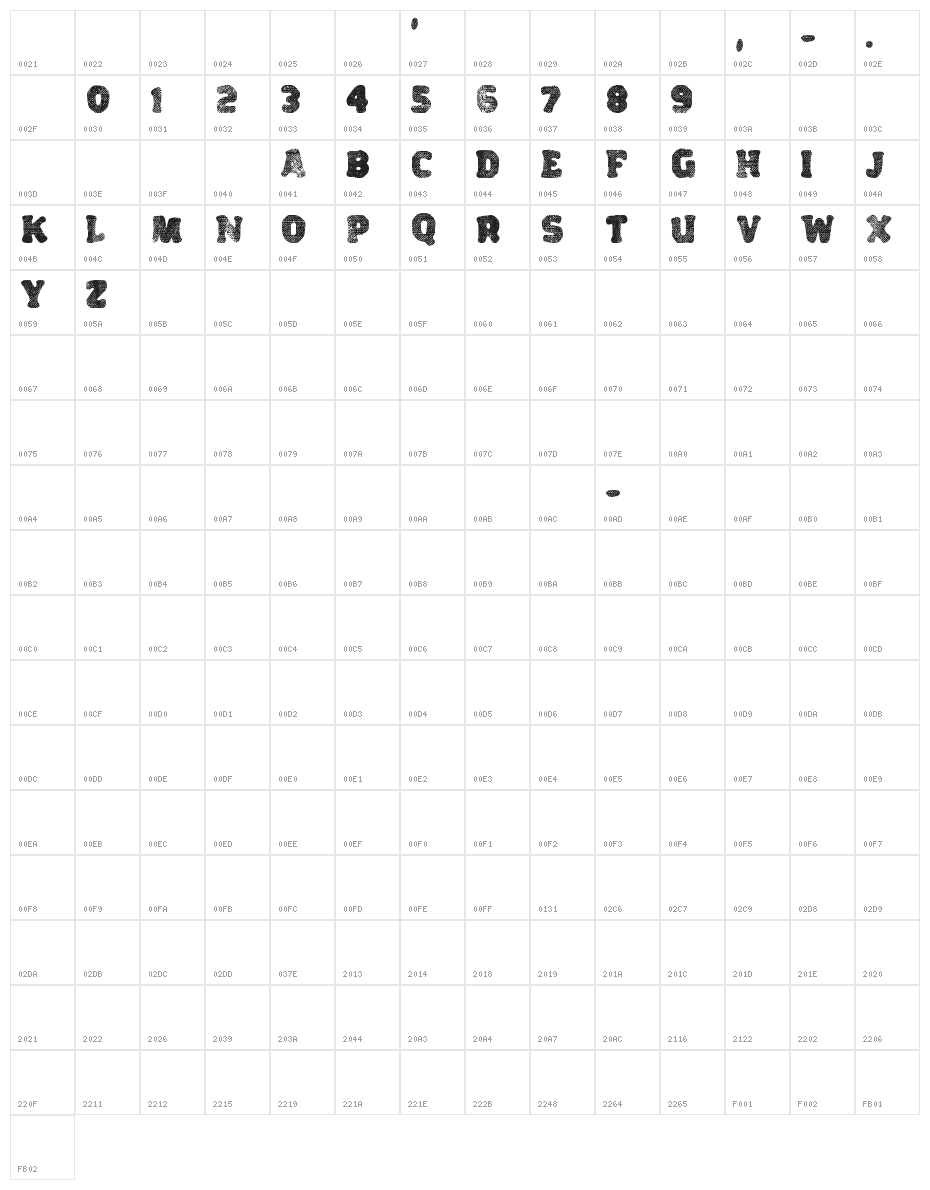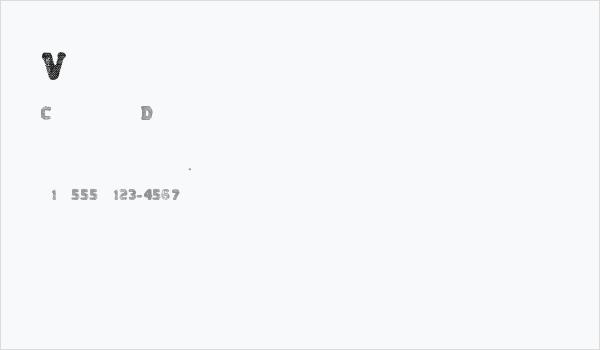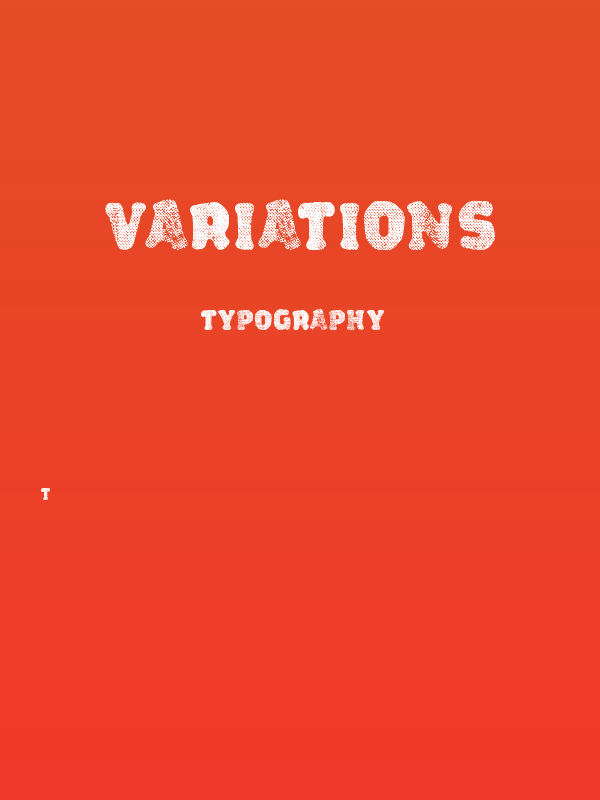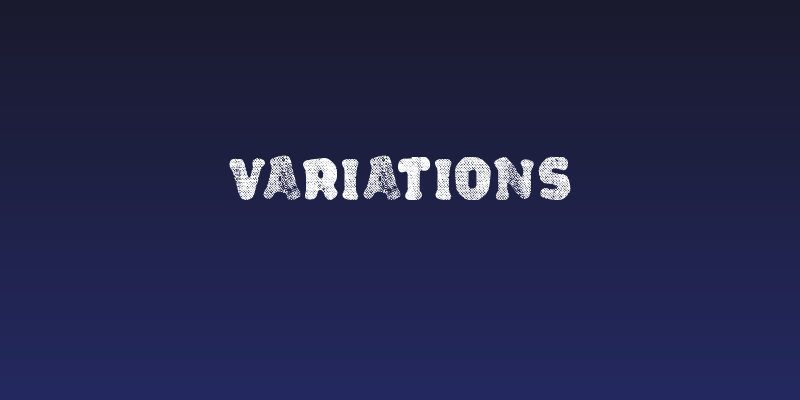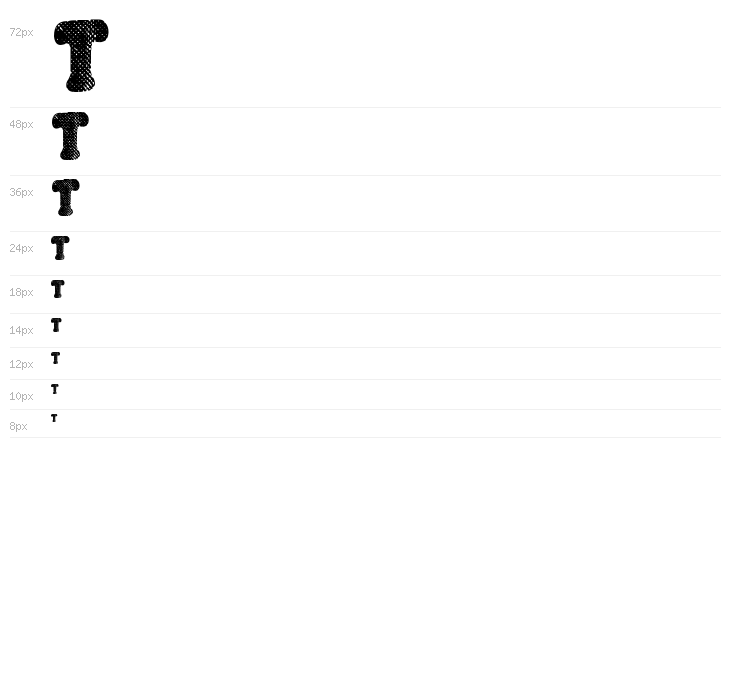
Variations Font
Variations Description
This font features a bold and playful design with a distinct halftone texture that gives it a retro comic book feel. The characters are rounded and robust, with a consistent weight that makes them stand out. The halftone pattern within each letter adds a unique visual interest, reminiscent of vintage printing techniques. The overall style is decorative and eye-catching, making it suitable for projects that require a fun and engaging aesthetic. The font's boldness ensures readability while maintaining its artistic flair.
Proposed ProjectsIdeal for comic book covers, retro-themed posters, playful branding, and eye-catching headlines.